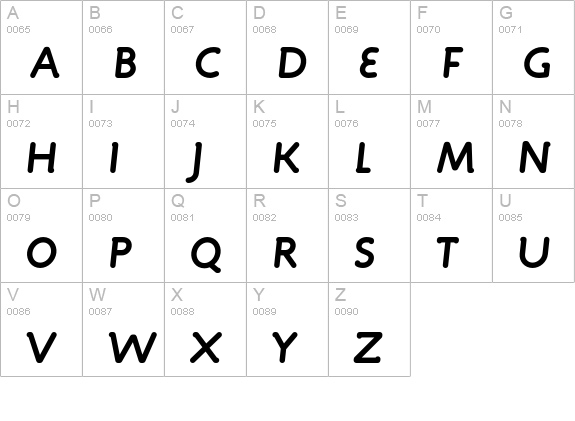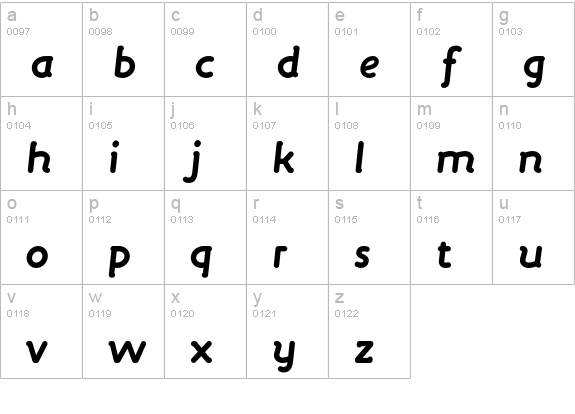
Engine-BoldItalic is a stylish and versatile font that exudes confidence and sophistication. Its bold and italic design commands attention and adds a touch of flair to any project. Whether you're working on a poster, website, or branding materials, Engine-BoldItalic is sure to make a bold statement. And the best part? Engine-BoldItalic is completely free to download at FontsMarket.com. This means you can easily access and use this striking font in your designs without any cost. So go ahead and give your projects a boost with Engine-BoldItalic today!